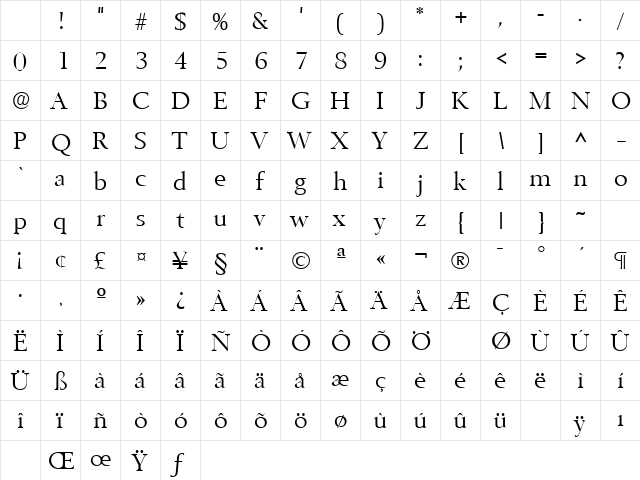
BelfastLH Regular
BelfastLH Family
Design Context for BelfastLH
BelfastLH is a composed and adaptable typeface that performs quietly and consistently across a wide range of design contexts.